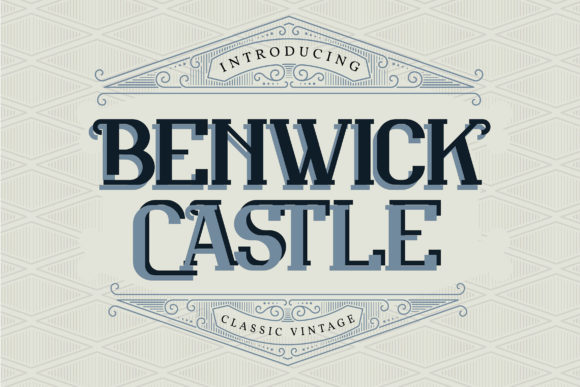
Dive into the realm of timeless elegance with Benwick Castle, a serif font that exudes strength, confidence, and dynamism. This assertive and classic font will captivate your designs with its nostalgic charm, adding a touch of sophistication to every project.
Benwick Castle is the perfect choice for those seeking fonts that are easy on the eyes, making it ideal for both digital and print media. Its PUA encoding ensures effortless access to a vast array of glyphs and swashes, empowering you to create breathtaking designs with ease.
Experience the allure of Benwick Castle's captivating serifs, reminiscent of a bygone era. Its carefully crafted curves and delicate details evoke a sense of nostalgia, imbuing your designs with a timeless charm.
Whether you're crafting logos that demand attention, designing elegant invitations, or creating eye-catching social media graphics, Benwick Castle is your trusted companion. Its versatile nature makes it suitable for a wide range of projects, allowing you to unleash your creativity without boundaries.
Benwick Castle is more than just a font; it's an expression of your individuality. Its distinct character adds a touch of personality to your designs, making them stand out from the crowd. Embrace the power of Benwick Castle and elevate your designs to new heights of excellence.